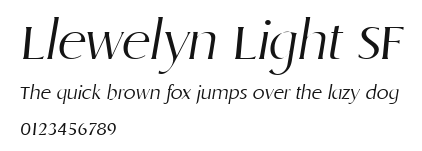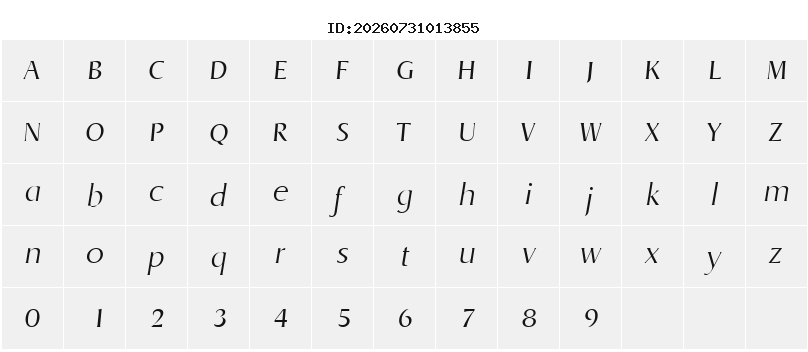
About Llewelyn Light SF.ttf
Llewelyn Light SF.ttf is a modern, elegant sans-serif font designed for ultimate readability and visual harmony. Perfect for branding, headlines, web design, and print materials.